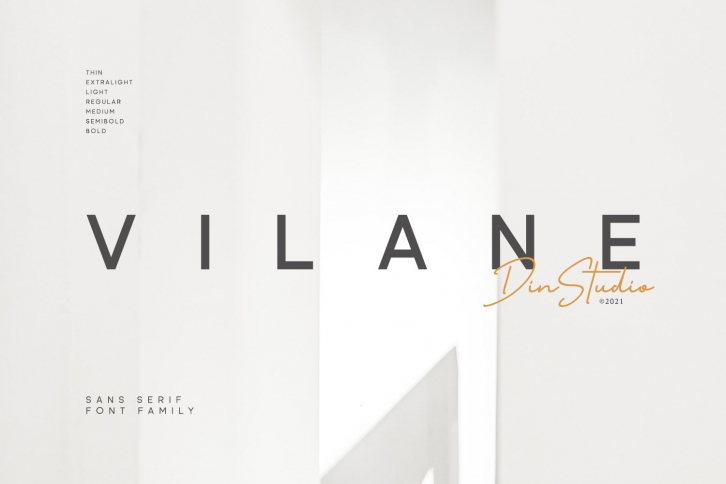
Vilane is a beautiful font that was designed by Din Studio. It's a great choice for designers and creatives who need such a font. It was released on March 27, 2021 and the file size is 21.62 MB. Vilane may give a more youthful, expressive and casual look to your project. It is a very beautiful, refined, elegant, and high-quality font.